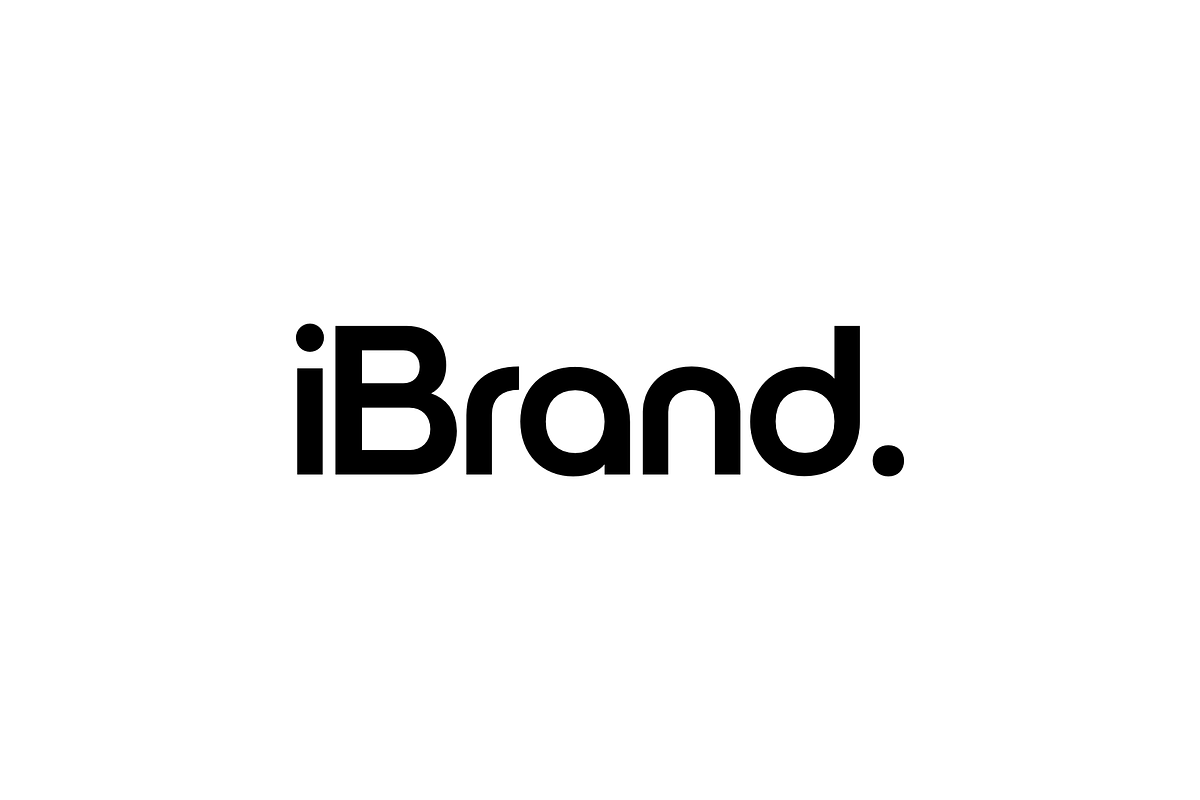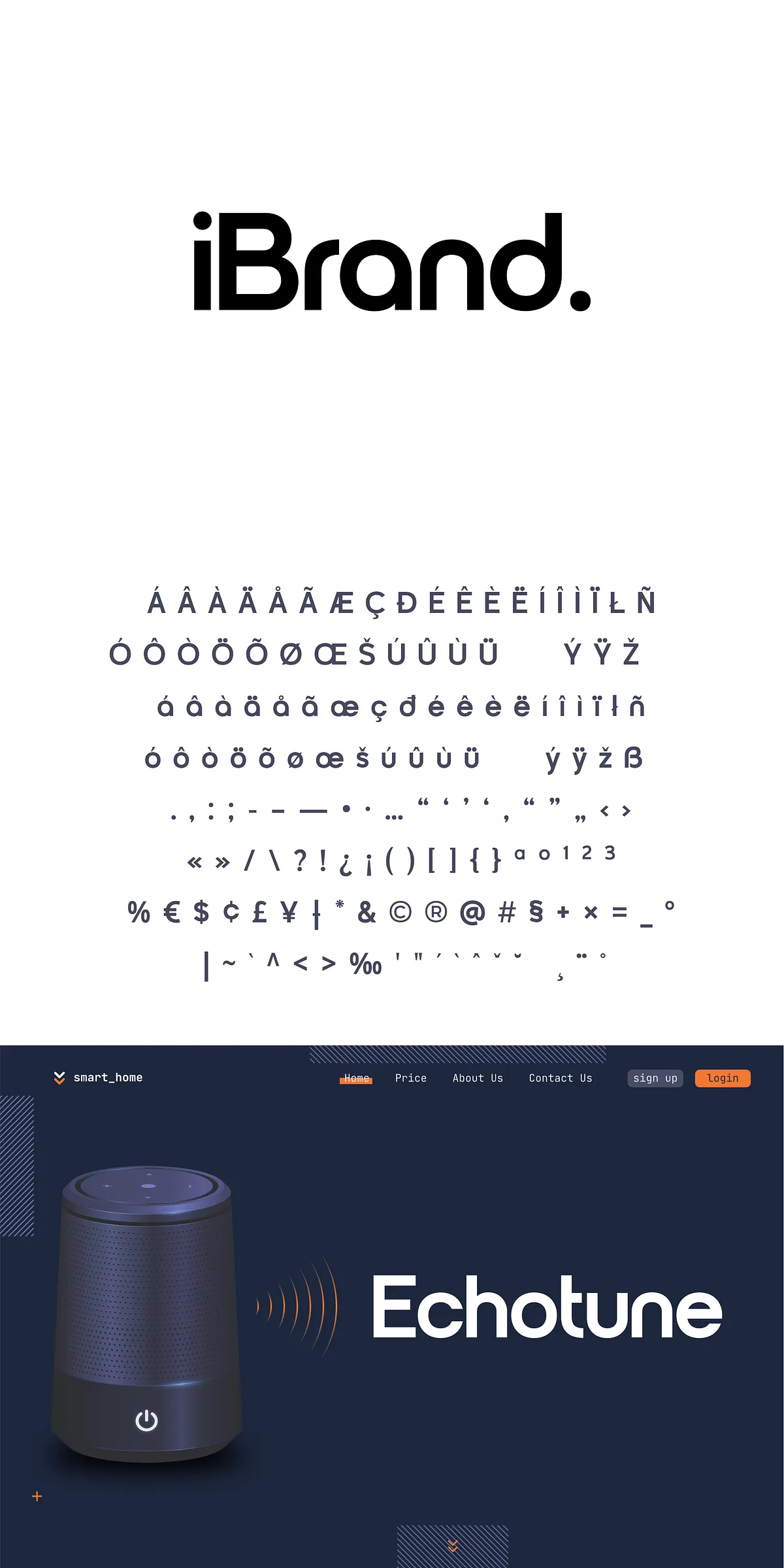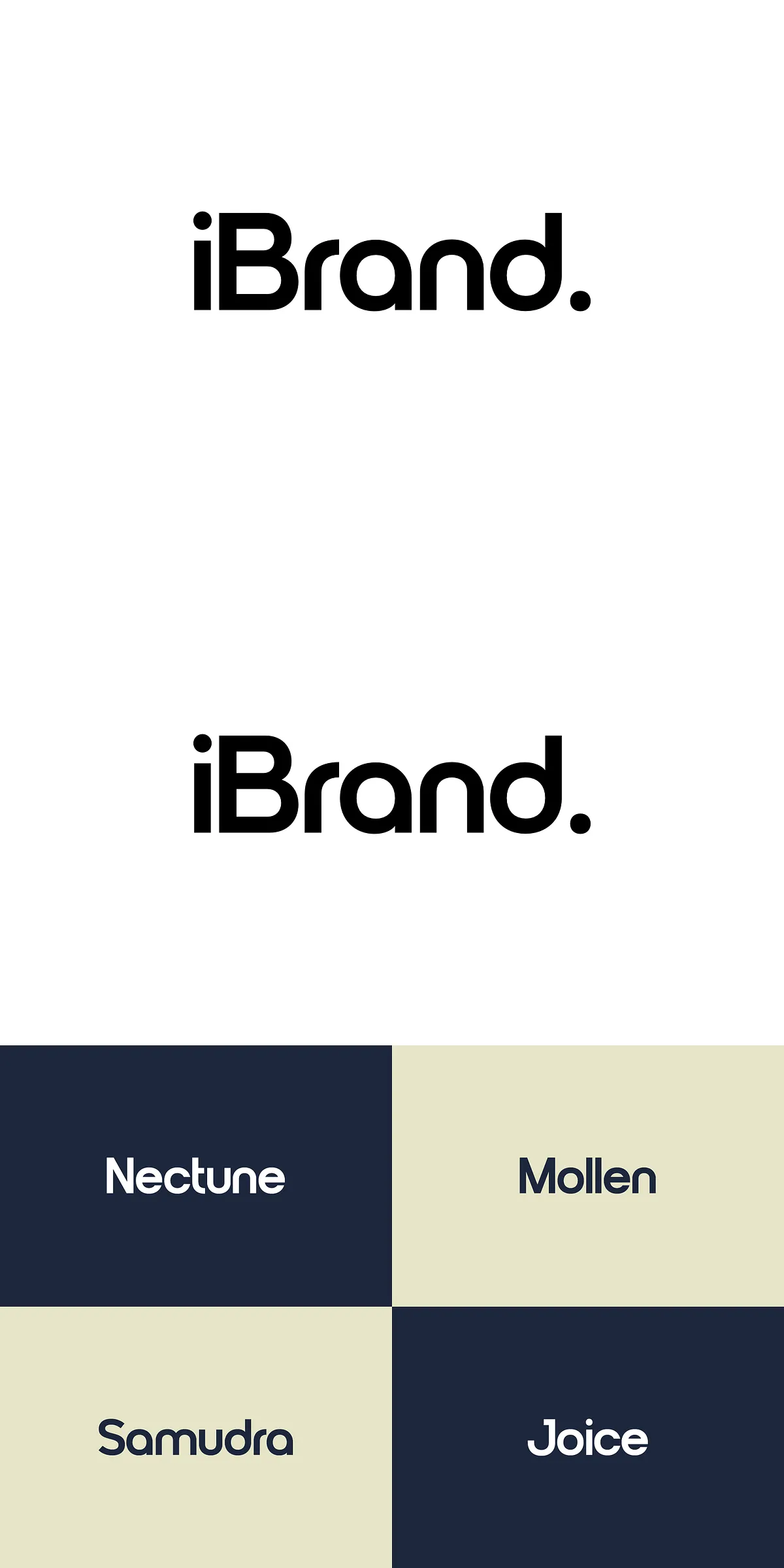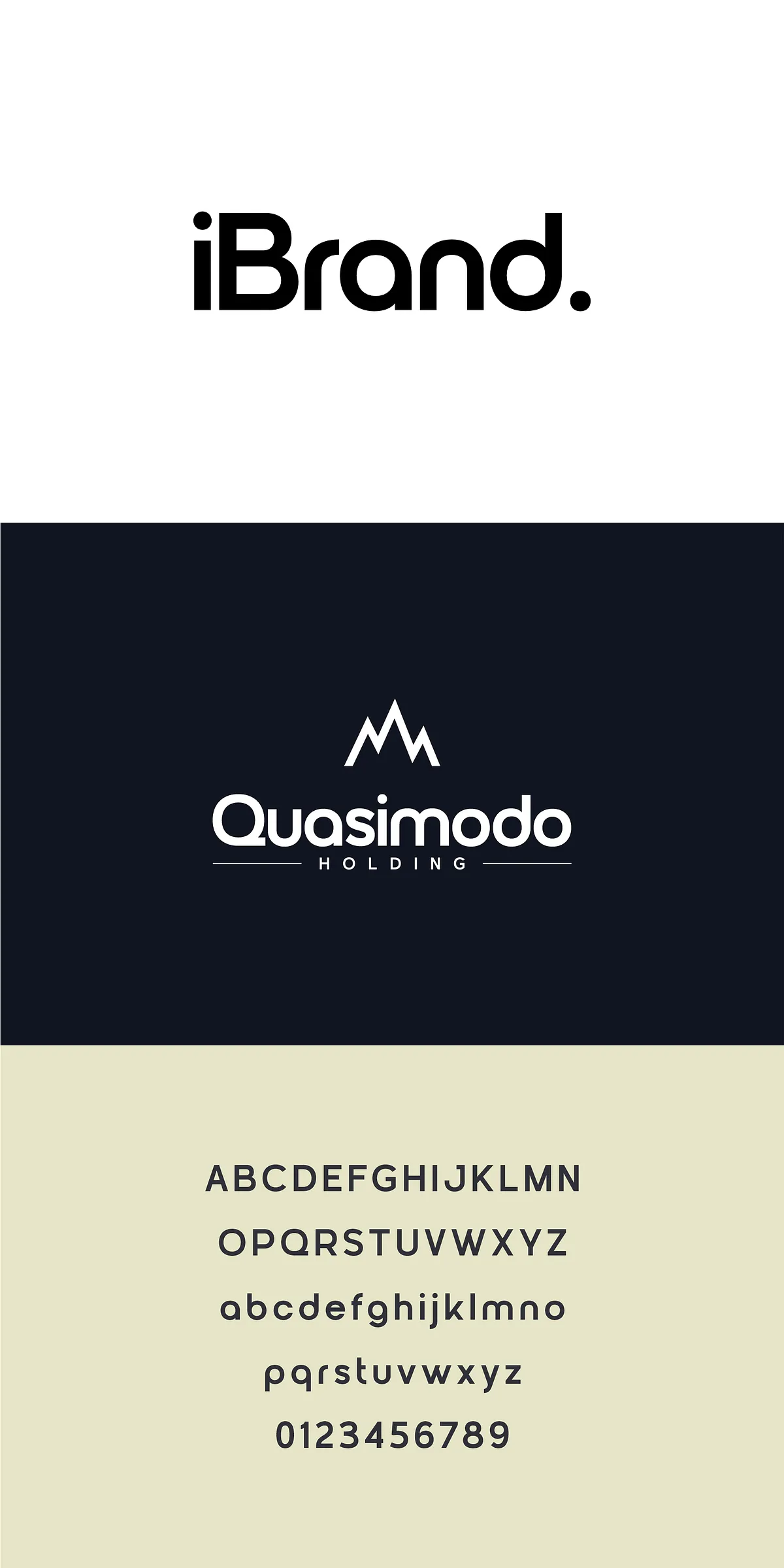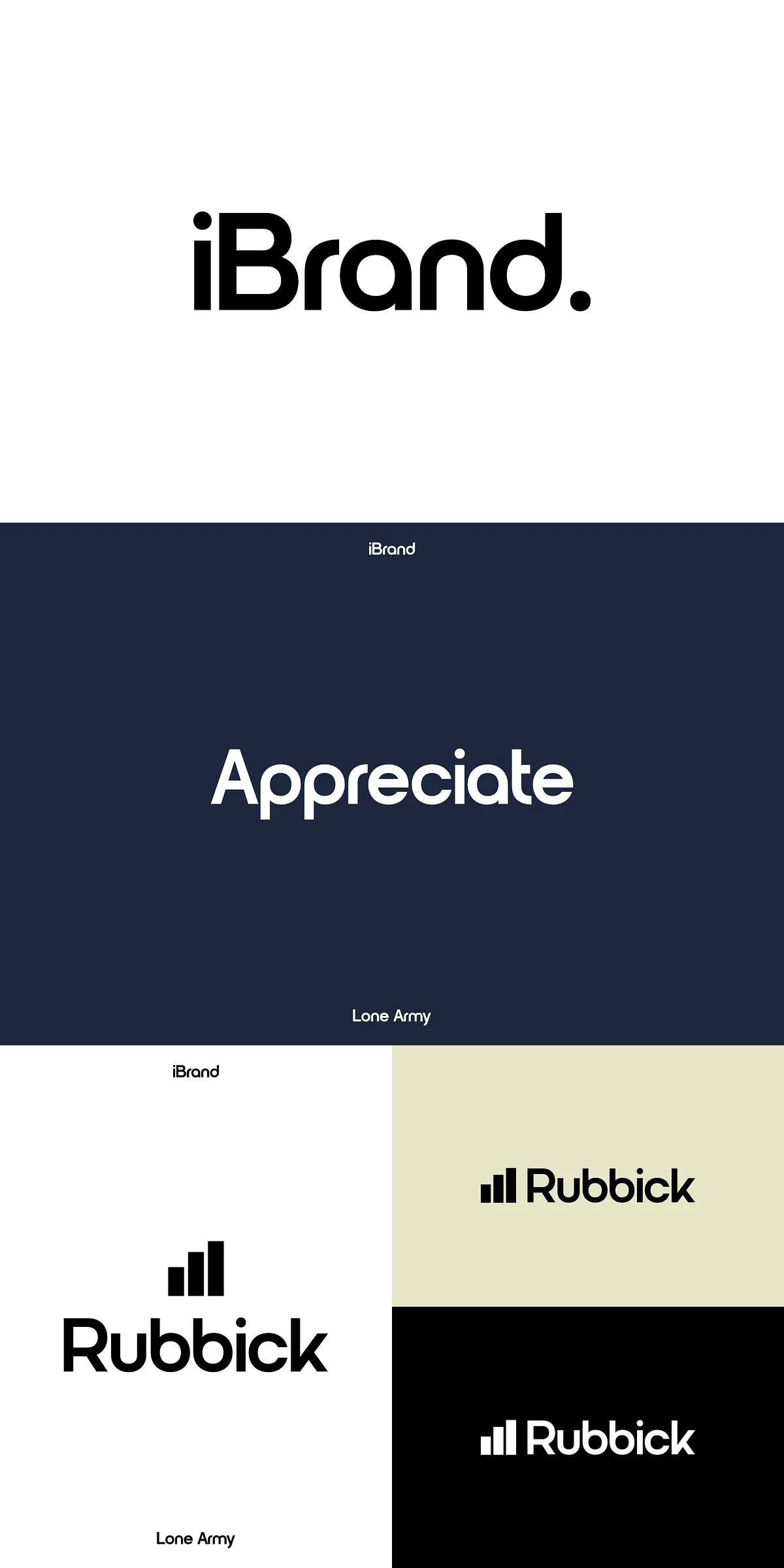
iBrand – Logo Font
Introducing iBrand Font — a meticulously engineered typeface built to dominate the world of logos, branding, headers, and titling. This is not just a font; it’s a strategic design tool for creatives who demand visual authority and flawless execution. Every curve, angle, and spacing decision has been refined to ensure your brand stands out with unapologetic confidence and professional elegance.
Why iBrand Font is the Ultimate Choice for High-Impact Design
• Engineered for Logos & Branding: Specifically tailored for logo design, iBrand Font delivers maximum visual impact. Its clean lines and bold structure provide instant recognition and authority on business cards, packaging, and digital banners.
• Precise Kerning and Spacing: Unlike generic fonts, iBrand Font features meticulously adjusted letter spacing and kerning, optimized to eliminate gaps, reduce visual clutter, and create balanced, magazine-ready headlines.
• Minimalist Power with Maximum Presence: With a focus on clean, sophisticated design, iBrand Font combines minimalism with strength. The result? A typeface that feels modern, intentional, and instantly credible.
• Not for Body Text – Built for Visibility: This is a deliberate design choice. iBrand Font is intentionally not suited for long paragraphs. Its focus is on large-scale applications where every character must be seen, read, and remembered.
Where iBrand Font Shines: Top Use Cases
iBrand Font transcends simple text. It becomes a central visual element in your brand’s identity. Use it to powerfully define your presence across:
Strategic Applications for iBrand Font
• Corporate Logos & Brand Marks: Create logo designs that project professionalism and modernity. iBrand Font ensures your brand’s name is the focal point, instantly legible and memorable.
• Website Headers & Hero Sections: Make first impressions unforgettable. Use iBrand Font in banner titles and section headers to draw attention and reinforce brand messaging.
• Print & Packaging Design: Elevate product packaging, brochures, flyers, and posters with a font that commands attention on shelves and in handouts.
• Presentations & Slide Decks: Boost your professional presentations with crisp, impactful titles that align with a high-end brand image.
Technical Strength and Seamless Integration
Elevate Your Work: Design with Purpose, Not Compromise
Choose iBrand Font when you’re ready to stop blending in and start leading. It’s the typeface for brands that know their value, for designers who care about the details, and for every project where first impression is everything. It doesn’t just convey a message—it commands attention.
Pro Tip: Pair with Simplicity
To maximize iBrand Font’s power, pair it with a neutral, minimalist body font. Let the iBrand title stand tall. Use subtle colors like black, white, or metallics to maintain focus on the letterforms themselves and let the typeface do the talking.